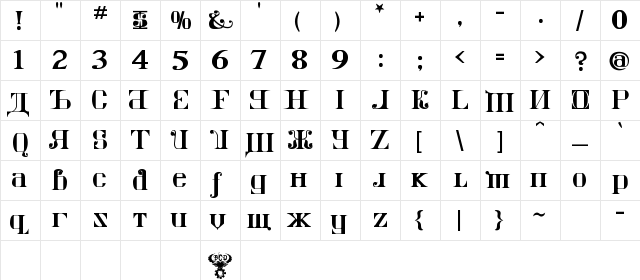
Kremlin Imperial Regular
Design Context for Kremlin Imperial Typeface
Kremlin Imperial is a composed and adaptable typeface that performs quietly and consistently across a wide range of design contexts.